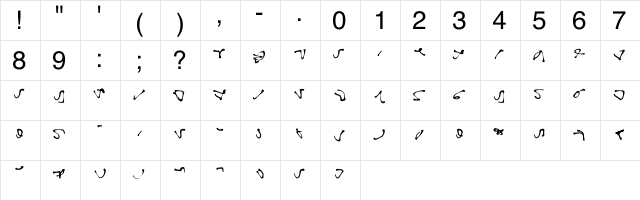
drunken_aztec_signs Regular
Design Context for drunken_aztec_signs Typeface
drunken_aztec_signs is a composed and adaptable typeface that performs quietly and consistently across a wide range of design contexts.